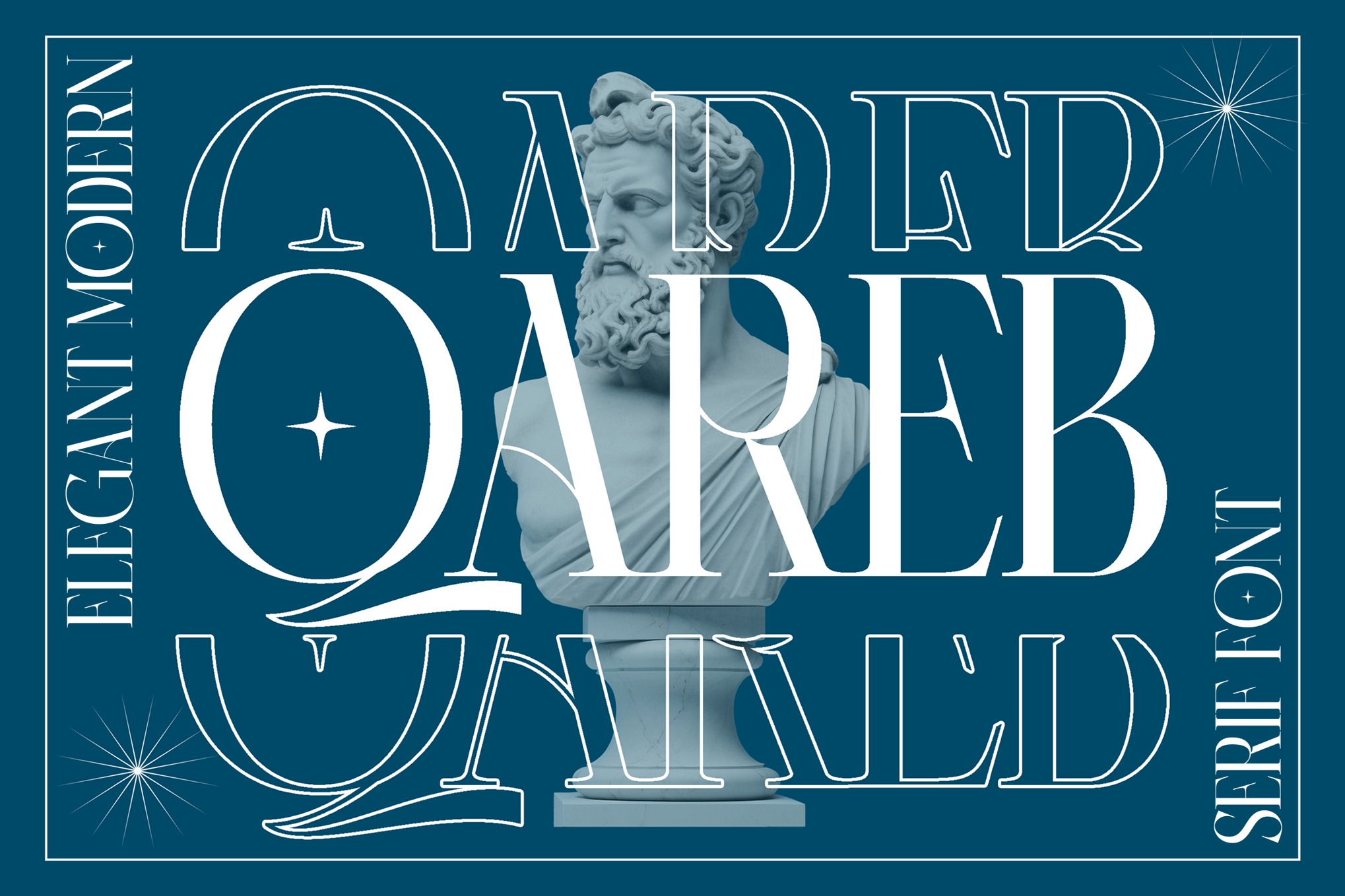
Qareb – Elegant Serif Font
Qareb – Elegant Serif Font is a professionally designed typeface that delivers clarity, structure, and consistent performance across various design applications. Qareb Serif is a modern serif typeface that blends classical elegance with contemporary details. Featuring fine, delicate strokes, graceful curves, and well-proportioned letterforms, this font is perfect for luxury branding, editorial layouts, packaging design, and creative projects that require a sophisticated and artistic touch. Qareb Serif also includes numerals, punctuation, and special characters, offering maximum flexibility for professional typography use.
Its uppercase letters convey a strong, classical presence, while the lowercase letters are sleek and elegant, achieving the perfect balance between modernity and timeless sophistication.